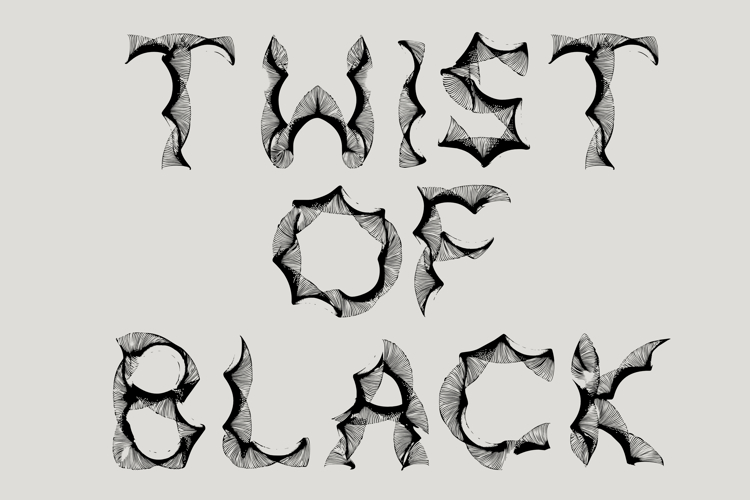
Twist of Black Font
'Twist of Black'
an unusual decorative display font created from one of my free brushes for Affinity 3 and Affinity Photo 2. There are two versions: 'Twist of Black' and 'Twist of Gold', a bitmap colour font.